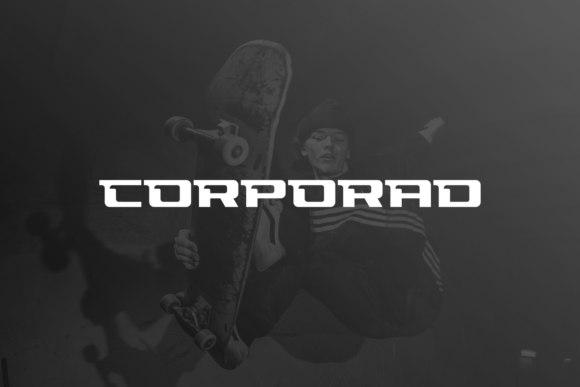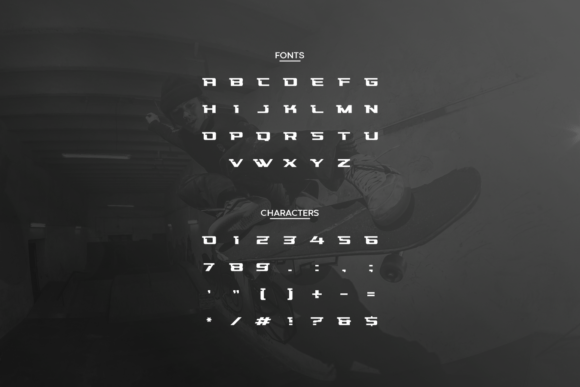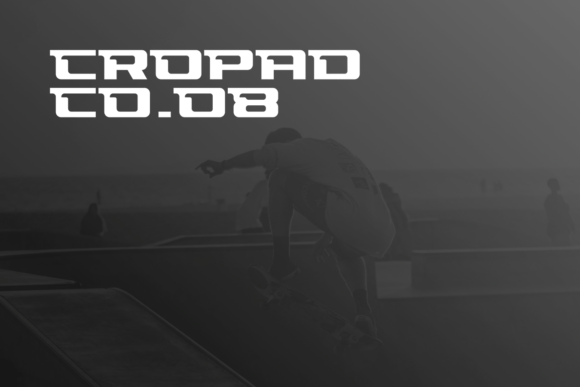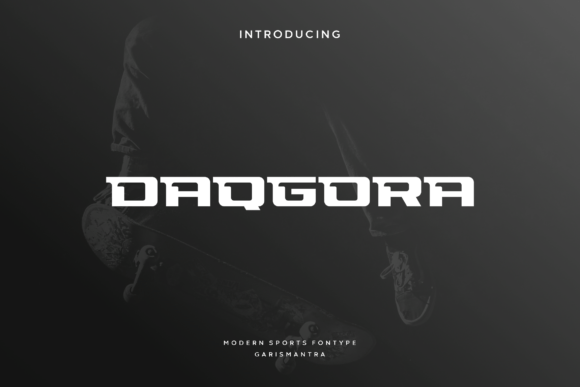
Daqgora Font: Elevate Your Designs with a Modern Sports-Themed Display Font
In the world of design, fonts play a crucial role in conveying the tone and personality of a project. Whether you’re working on a sports brand’s logo, a fitness website, or a craft project, the right font can make all the difference. This is where Daqgora Font comes in – a modern, sports-themed display font designed to elevate your creations and take them to the next level.
What is Daqgora Font?
Daqgora Font is a stylish and versatile display font that is perfect for designers, crafters, and anyone looking to add a touch of sports flair to their projects. With its sleek lines, bold curves, and dynamic style, Daqgora Font is sure to grab attention and leave a lasting impression.
Key Features of Daqgora Font
- Modern Design: Daqgora Font boasts a modern design that is both fresh and stylish, making it perfect for contemporary projects.
- Sports-Themed: The font’s sports-themed style is ideal for sports brands, fitness websites, and any project that requires a bold and dynamic look.
- Display Font: Daqgora Font is a display font, making it perfect for headlines, titles, and short text passages.
- Versatile: The font is versatile and can be used for a wide range of projects, from logos and branding to posters and flyers.
Benefits of Using Daqgora Font
So, why should you choose Daqgora Font for your projects? Here are just a few benefits of using this amazing font:
- Elegant and Professional: Daqgora Font adds an elegant and professional touch to any project, making it perfect for businesses and individuals looking to make a statement.
- Easy to Read: The font is easy to read, even at small sizes, making it perfect for use in a variety of contexts.
- Unique Style: Daqgora Font has a unique style that sets it apart from other fonts, ensuring your project stands out from the crowd.
- Time-Saving: With Daqgora Font, you can save time and effort by using a pre-designed font that is ready to use.
How to Use Daqgora Font
Using Daqgora Font is easy and straightforward. Here are a few tips to get you started:
- Pair it with Other Fonts: Daqgora Font pairs well with other fonts, making it easy to create a unique and harmonious typography scheme.
- Use it for Headlines: The font is perfect for headlines and titles, where its bold and dynamic style can really shine.
- Experiment with Colors: Daqgora Font looks great in a variety of colors, so don’t be afraid to experiment and find the perfect hue for your project.
Who Can Benefit from Daqgora Font?
Daqgora Font is perfect for a wide range of designers, crafters, and individuals, including:
- Graphic Designers: Graphic designers can use Daqgora Font to create stunning logos, branding, and marketing materials.
- Web Designers: Web designers can use the font to create engaging and dynamic websites that showcase their clients’ products and services.
- Crafters: Crafters can use Daqgora Font to add a personal touch to their craft projects, such as handmade cards, gift tags, and scrapbooking.
- Sports Teams and Organizations: Sports teams and organizations can use Daqgora Font to create bold and dynamic branding, logos, and marketing materials.
In conclusion, Daqgora Font is a modern, sports-themed display font that is perfect for designers, crafters, and anyone looking to elevate their projects and take them to the next level. With its sleek lines, bold curves, and dynamic style, Daqgora Font is sure to grab attention and leave a lasting impression. Whether you’re working on a sports brand’s logo, a fitness website, or a craft project, Daqgora Font is an incredible asset to your fonts’ library.